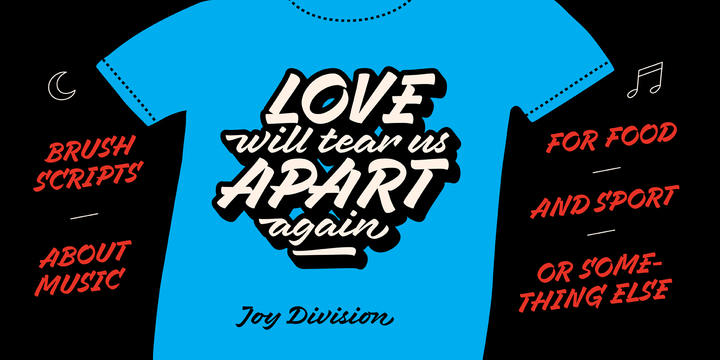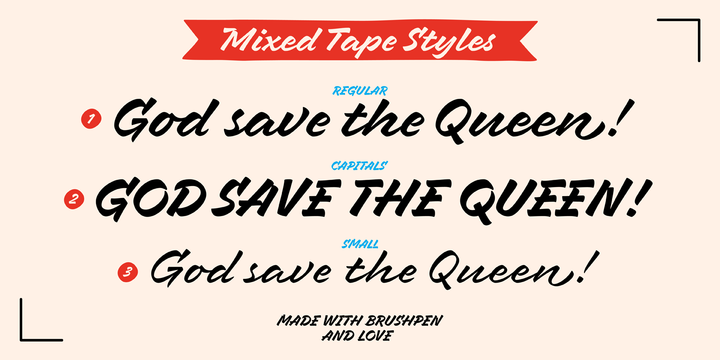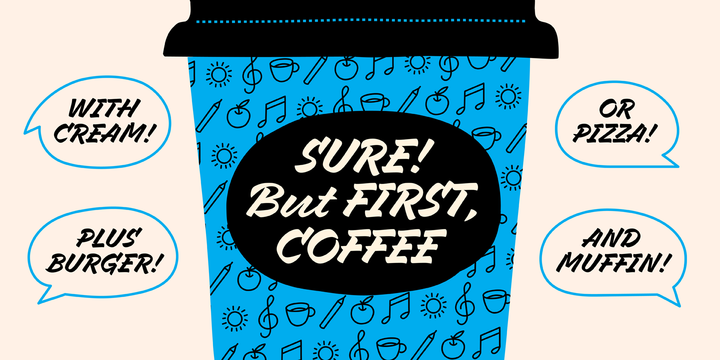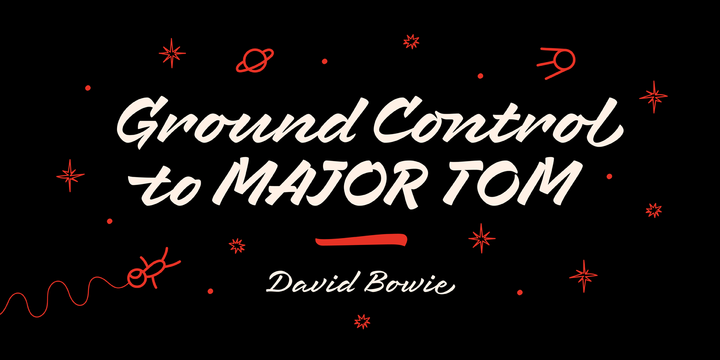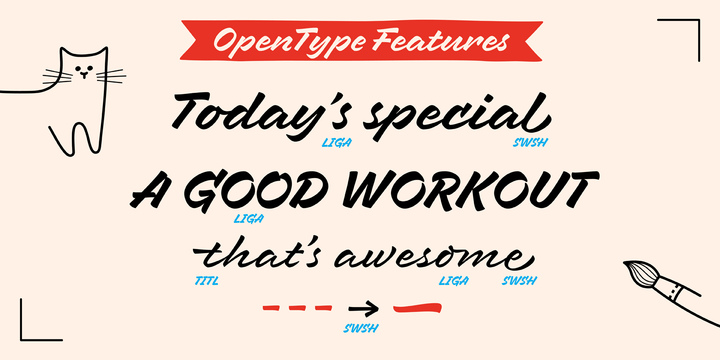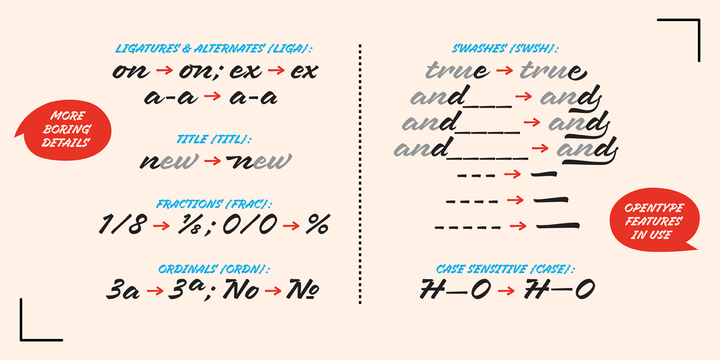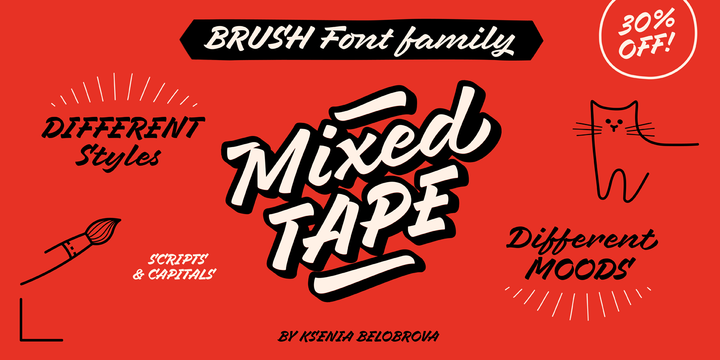
Mixed Tape Font Family
Mixed Tape is a brush typefamily inspired by music and based on calligraphy. It has 3 different styles so that you can choose which you need or combine them as you like. Mixed Tape Regular is a casual neutral brush script, Mixed Tape Small is a more elegant variation and Mixed Tape Capitals is an energetic, probably even brutal brush script. You can freely play with the three of them creating your typographic compositions.